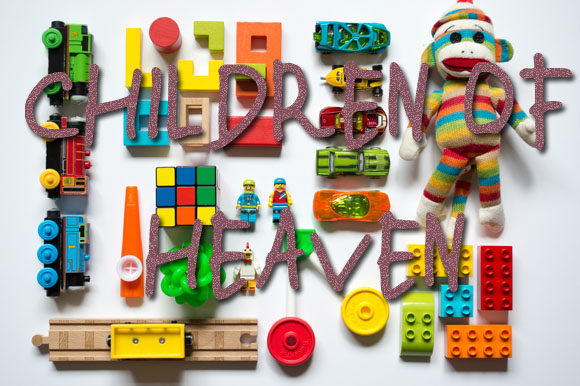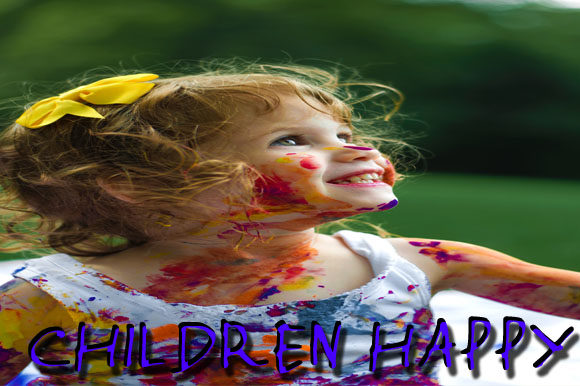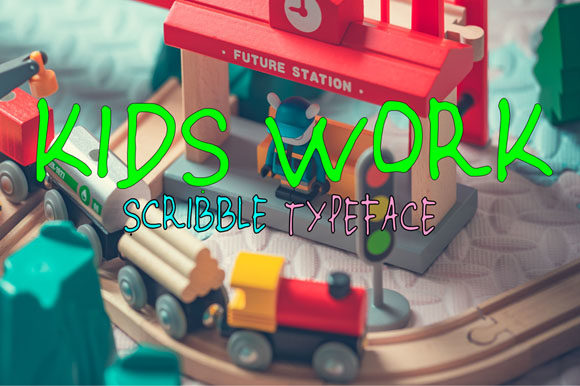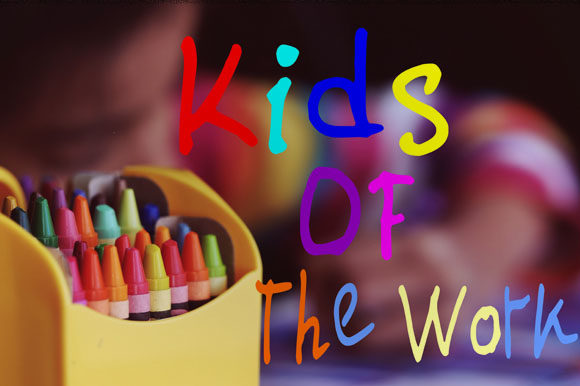
Introduction to Kids Work Font
Have you ever stared at a blank canvas, wondering what sparks your creativity? It’s that moment when inspiration strikes, and a unique idea begins to take shape. For designers, finding the perfect font can be the turning point in a project. That’s where the charming Kids Work Font comes in – a carefully handcrafted display font that’s sure to elevate any design project.
With its sweet and playful feel, the Kids Work Font is a high-quality design resource that’s perfect for creatives looking to add a personal touch to their work. Whether you’re working on a free download or a commercial project, this font is sure to make your design stand out. Its transparent background and beautiful typography make it a valuable asset for designers who want to create something truly special.
So, what makes the Kids Work Font so valuable for designers? Its unique charm and versatility make it a go-to choice for any creative project. From logo designs to typography-based art, this font is sure to inspire and delight. In this article, we’ll take a closer look at the Kids Work Font and explore its many uses in design.
Key Features of Kids Work Font
- High-quality design resource suitable for creative projects, such as children’s books, educational materials, and more.
- Comes with a transparent background, allowing for easy integration into various design elements and backgrounds.
- Designed to be highly legible, even at small font sizes, making it ideal for use in a variety of contexts.
- Unique, child-friendly design makes it a standout choice for any creative project requiring a fun and engaging font.
Honest Review: Kids Work Font
I recently stumbled upon the Kids Work Font, and I must say it’s a delightful addition to any creative project. This free download offers a high quality, playful font that’s perfect for kids-related themes, educational materials, or even just adding a touch of whimsy to your design.
What works well: ✨ The font is incredibly versatile, suitable for both digital and print media. The transparent background makes it easy to combine with other design elements, and the font’s modern feel makes it perfect for a wide range of creative projects.
Here are some of the font’s key features:
- High-quality design that’s perfect for professional-looking projects
- Transparent background for easy layering and composition
- Suitable for both digital and print media
Limitations: ⚠️ The font is primarily designed for kids-related themes, which might limit its use in other creative projects. Additionally, the font’s bold style might not be suitable for all design contexts.
Overall, I’m impressed with the Kids Work Font. It’s a great resource for designers looking to add a playful touch to their projects, and its high-quality design makes it a valuable addition to any design library.
Transparent Background and Tips
The Kids Work Font has a transparent background, making it perfect for use on any background. To get the most out of this font, use it with a high-quality image or design element. You can also use it in combination with other design resources to create a unique and eye-catching design.
The Kids Work Font is perfect for use in various creative projects, including children’s books, educational materials, and fun designs. Its playful and fun design makes it ideal for use in any project where you want to add a touch of whimsy and creativity.